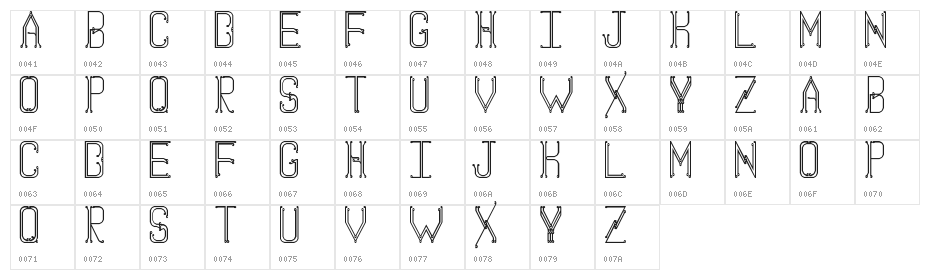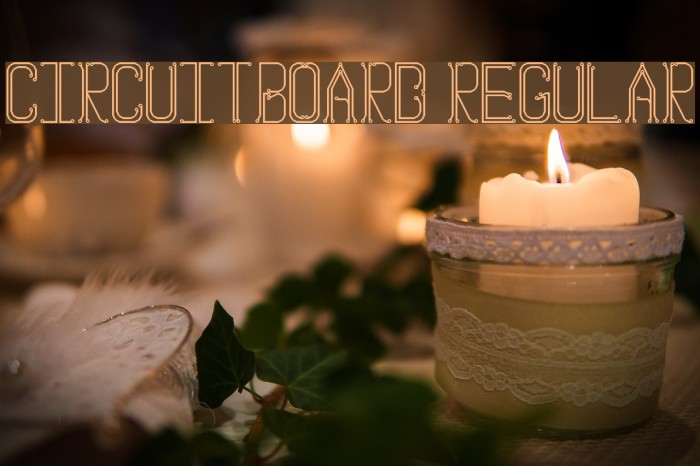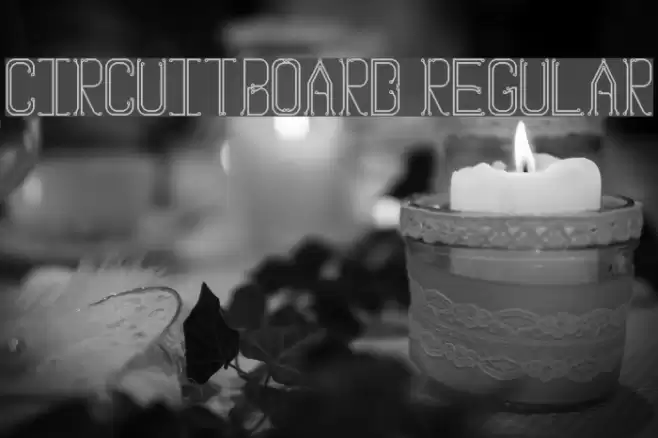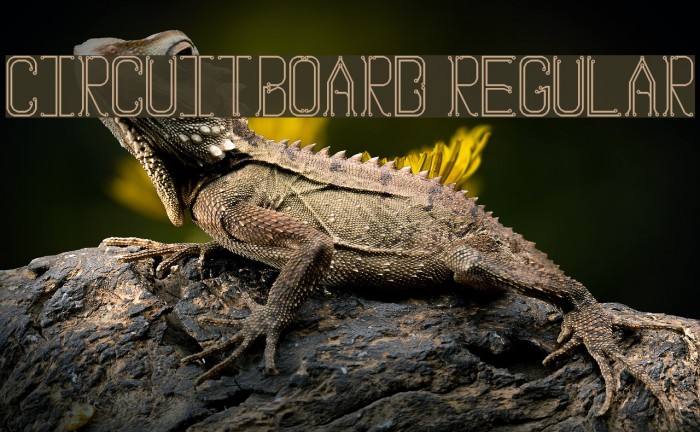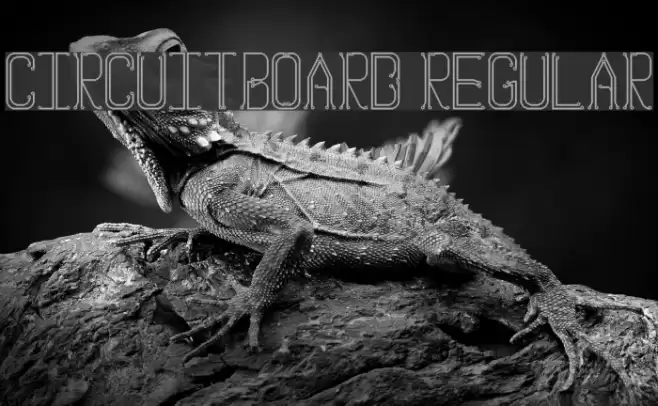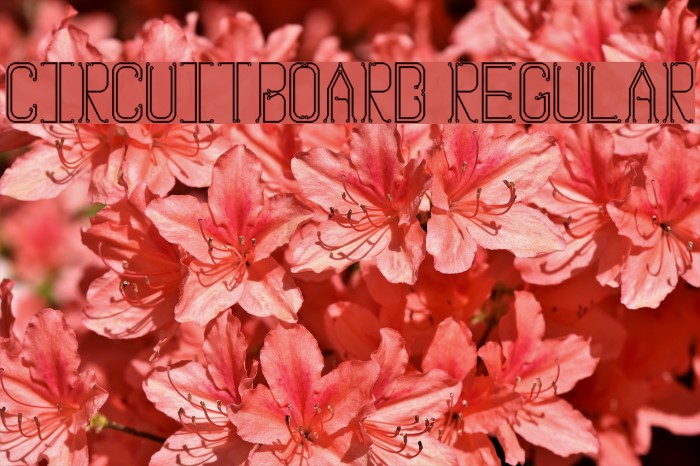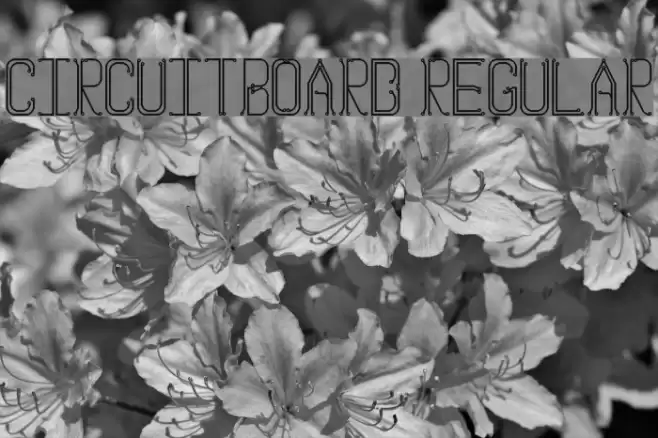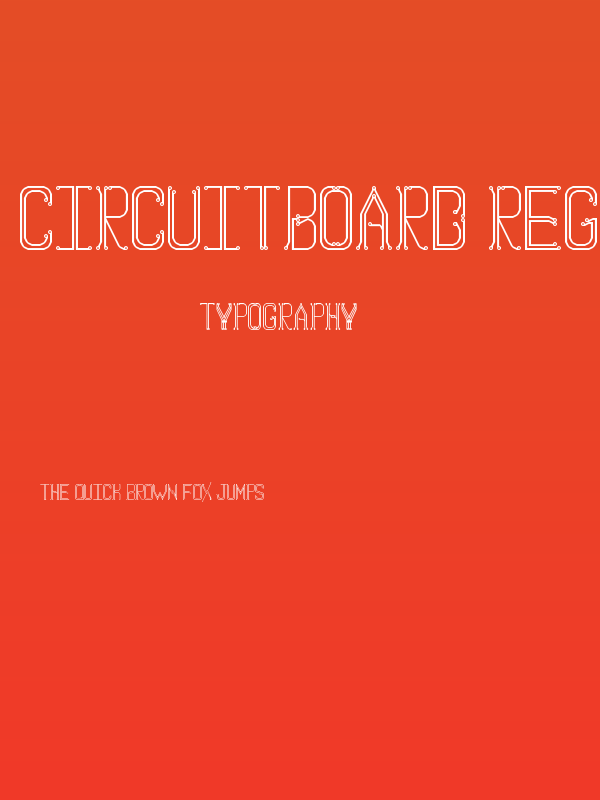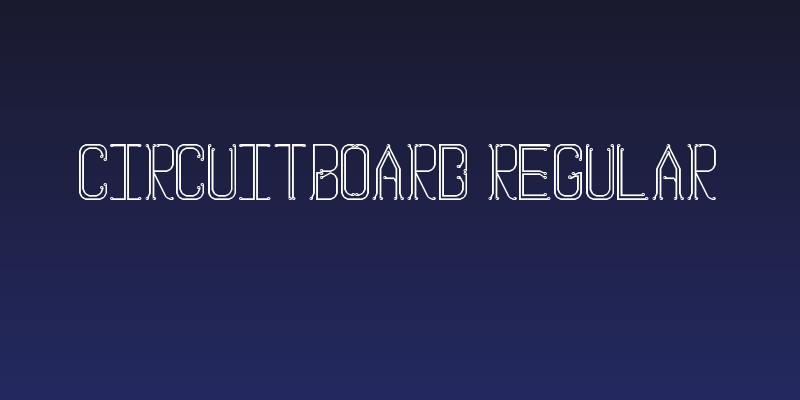
Circuitboard Regular Font
Circuitboard Regular Description
This font features a unique and intricate design that mimics the appearance of a circuit board. Each character is composed of lines and dots that resemble electronic pathways and connections, giving it a highly technical and futuristic look. The uppercase and lowercase letters maintain a consistent style, with clean lines and precise angles, while the numbers and special characters follow the same thematic design. The font's aesthetic is both modern and decorative, making it ideal for projects that require a technological or digital theme.
| Proposed Projects | Ideal for technology-themed posters, digital art, branding for tech companies, and any project that requires a modern, electronic aesthetic. |